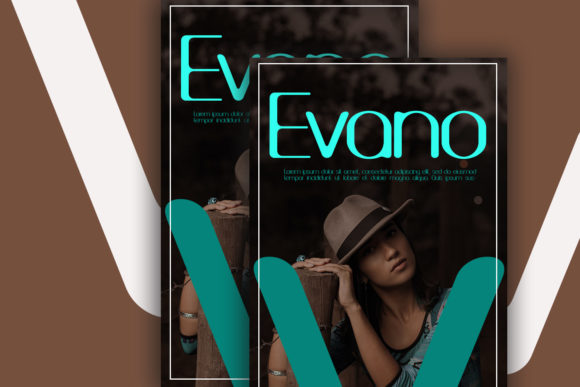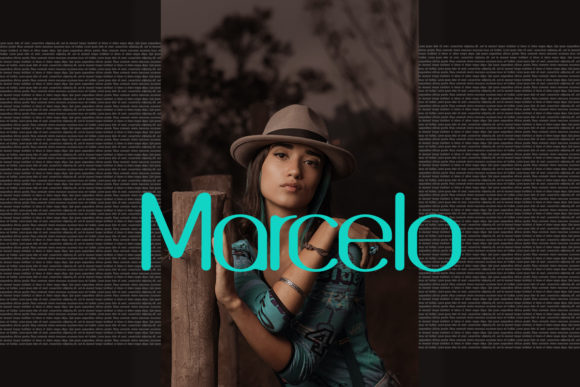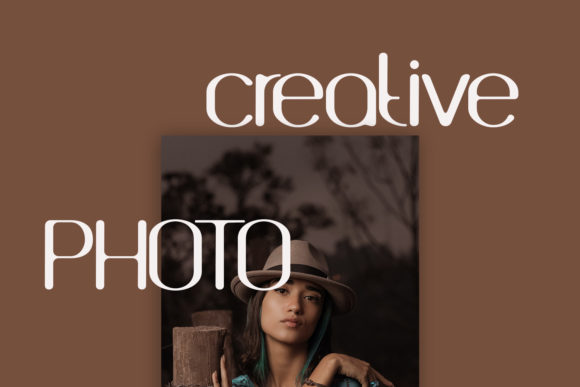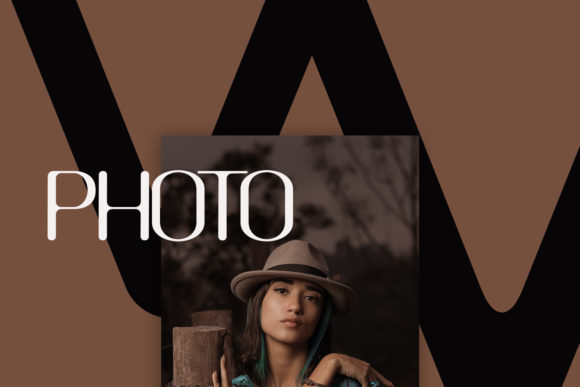
Introduction to Foerin Typeface Font
Foerin is a modern display typeface, It can keep the minimalism at its level best and is a perfect choice for creative and classic typography designs.
Foerin is a single weight font It can be used for logo, branding, headlines, big text & display usage.